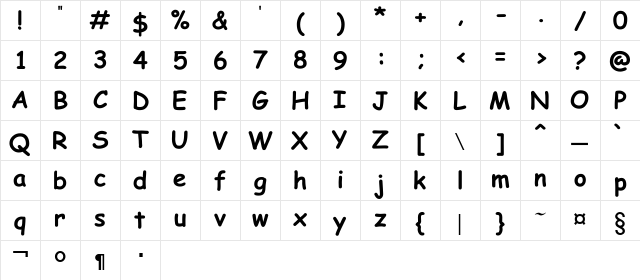
AlQalam Mujeeb Regular Free Font
AlQalam Mujeeb Regular
Complete AlQalam Mujeeb Regular glyph index. Displaying only characters natively supported by AlQalam Mujeeb Regular font.
Design Context for AlQalam Mujeeb
AlQalam Mujeeb is a composed and adaptable typeface that performs quietly and consistently across a wide range of design contexts.